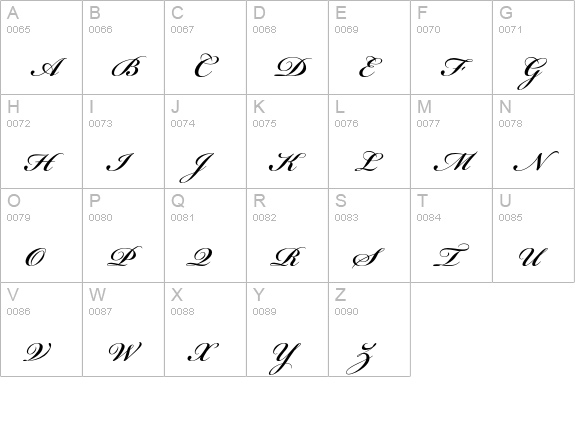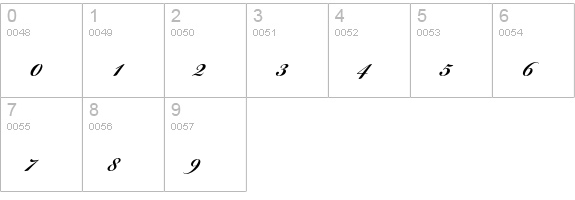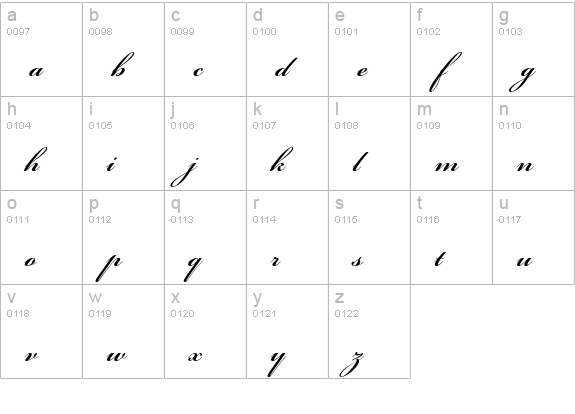
Bickham Script Std Bold is a strong, high-contrast variant in the Bickham typeface family \xE2\x80\x94 well suited to headlines, attention-grabbing titles, and strong calls-to-action.
Bickham Script Std Bold is a stunning and elegant script font that exudes sophistication and charm. With its bold strokes and delicate flourishes, this font is perfect for adding a touch of luxury to any design project. Whether you're creating wedding invitations, branding materials, or elegant stationery, Bickham Script Std Bold will elevate your work to the next level. The best part is that this exquisite font is available for free download at FontsMarket.com. So, you can easily access this premium font without any cost, making it a valuable addition to your font collection. Don't miss out on the opportunity to enhance your designs with the timeless beauty of Bickham Script Std Bold. Download it today and let your creativity shine!